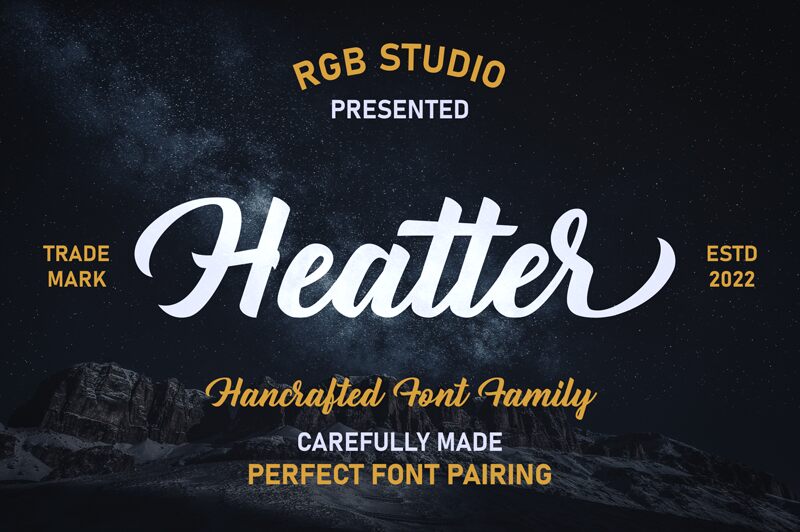
Heatter font is a retro and beautiful calligraphy typeface by RGB Studio. It is expressive, elegant, and vintage-inspired with a flowing script style. This font can make any project stand out by giving it a unique, signature-like appearance that makes it memorable.
This free calligraphy font is suitable for blog posts, logos, branding, advertisements, invitations, greeting cards, planners, photo albums decorations and many more!
Heatter